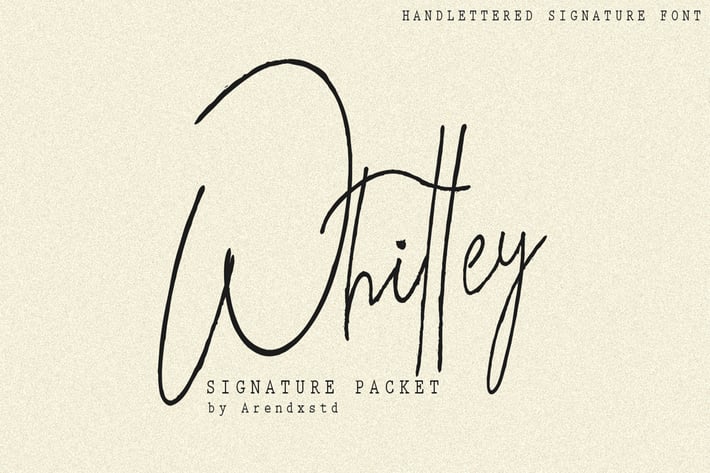
Whitley Signature Typeface
Whitley is a handwritten signature font package with a personal charm. With a style that I feel is the first time being blended with a different brush so it has a natural hand.
It includes Whitley Alt weights which have alternative characters, both with capital letters and small that is completely new.
Ligatures are available for some lowercase letters (more natural double letters). This can be accessed through software with different devices or glyph panels, e.g. Photoshop / Illustrato
It includes Whitley Alt weights which have alternative characters, both with capital letters and small that is completely new.
Ligatures are available for some lowercase letters (more natural double letters). This can be accessed through software with different devices or glyph panels, e.g. Photoshop / Illustrato